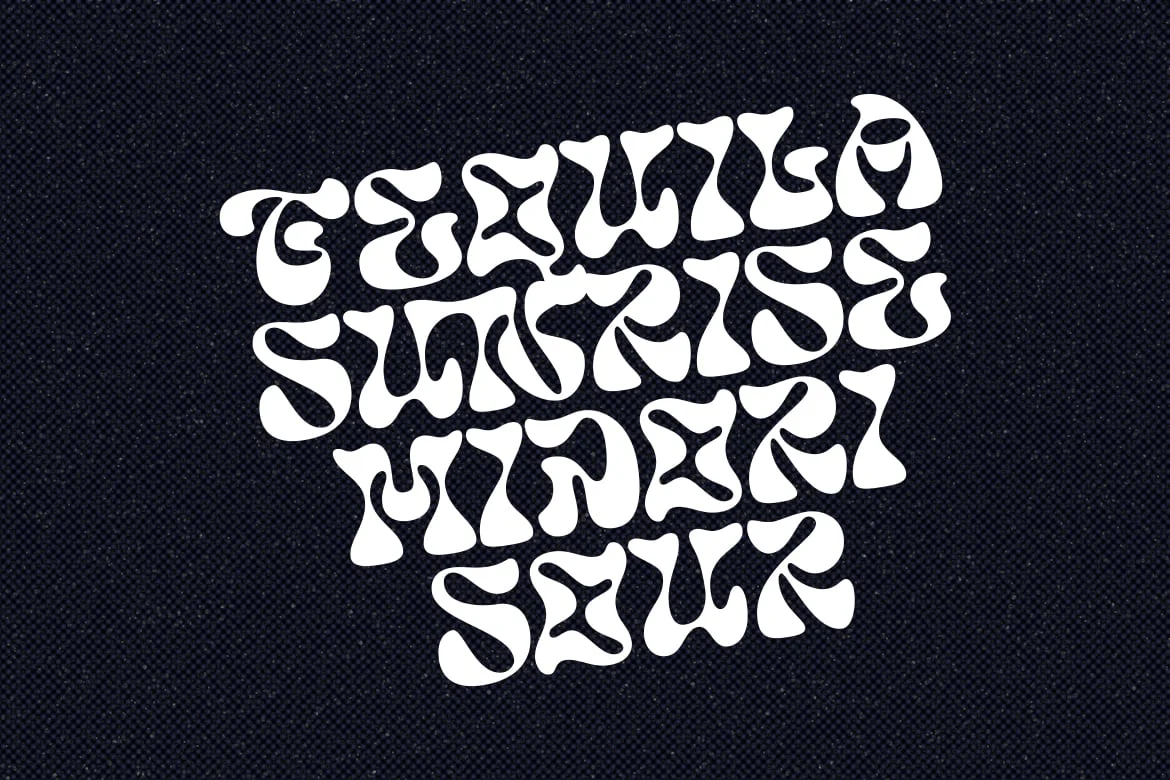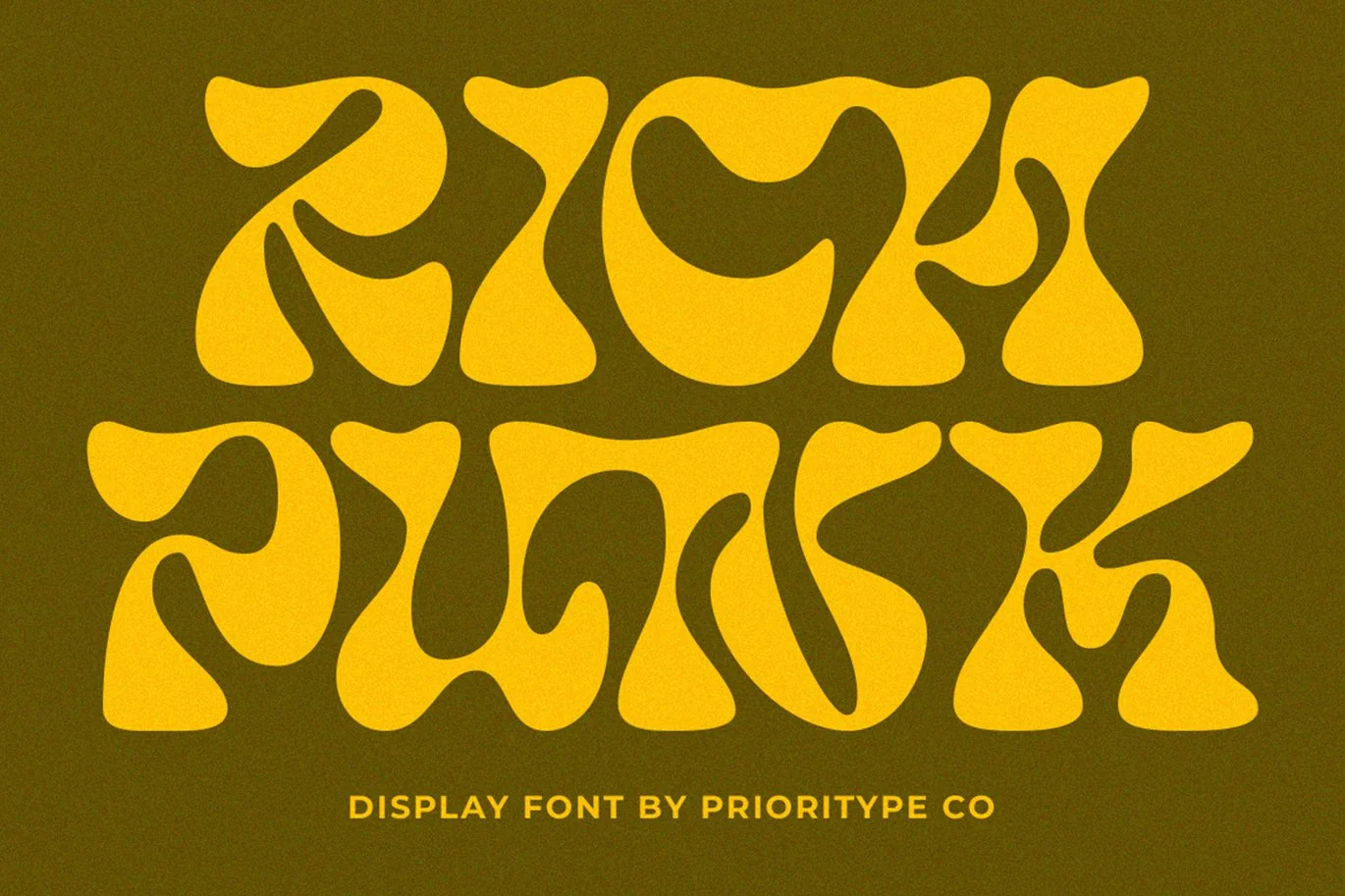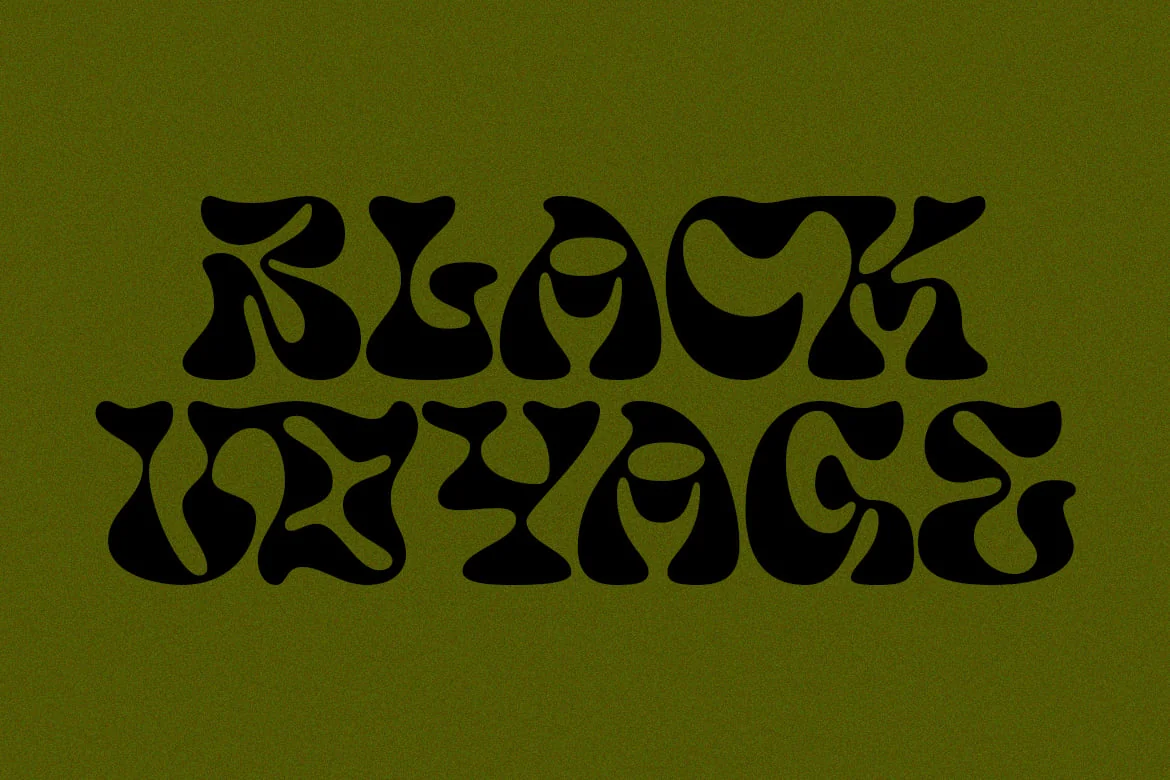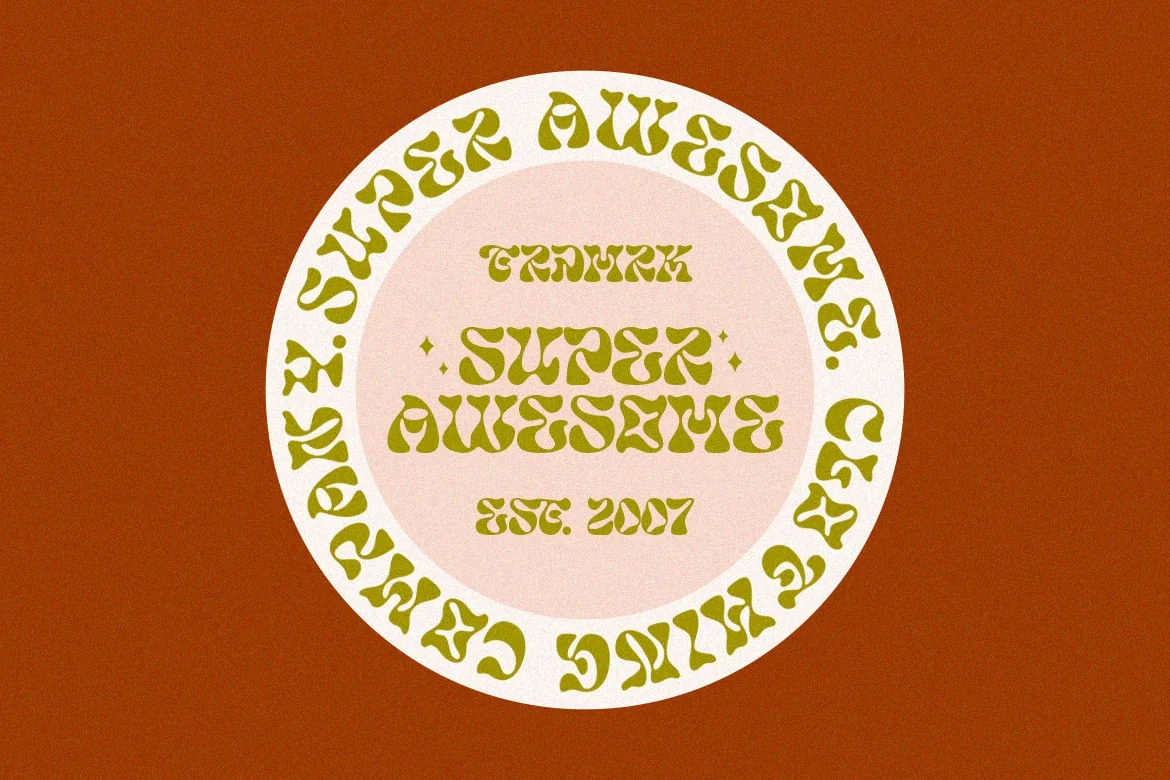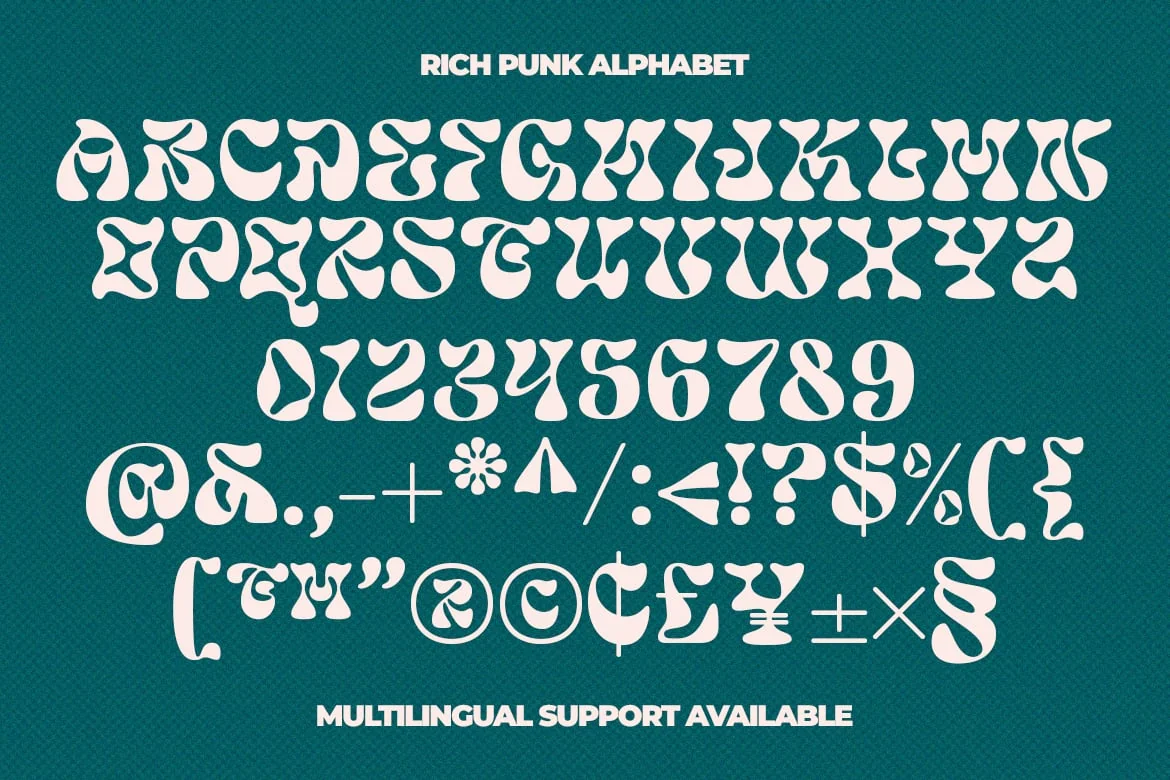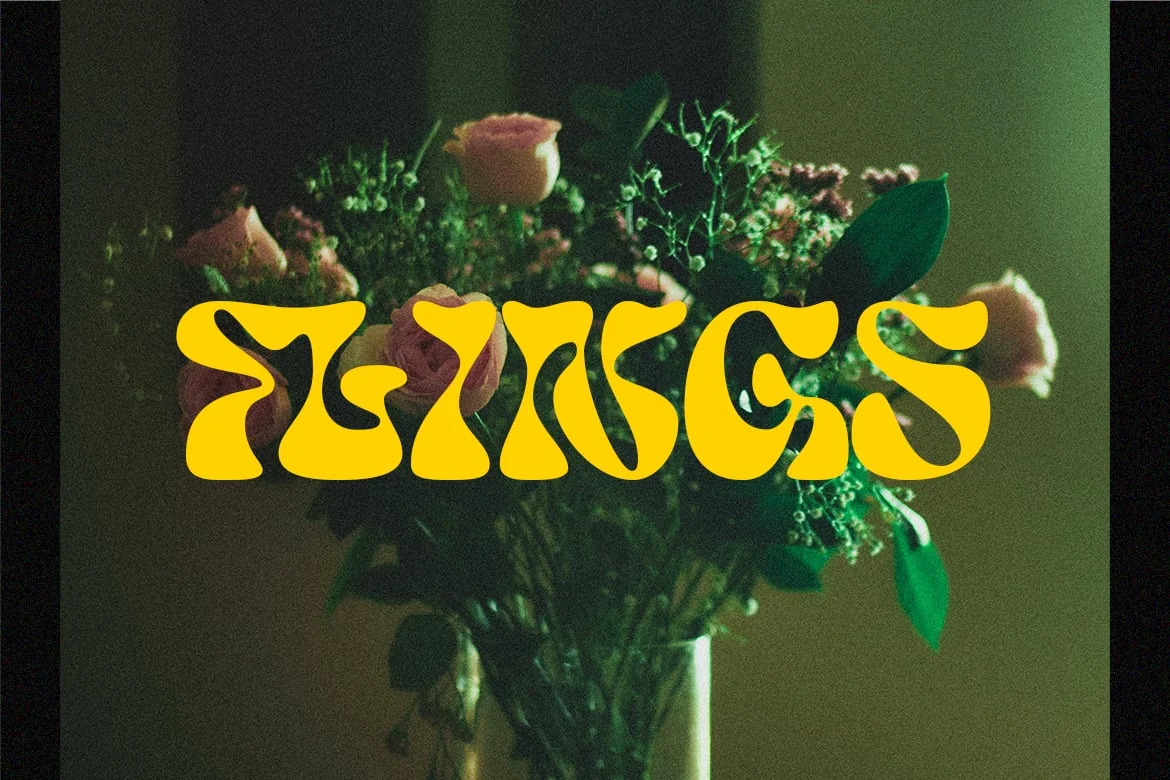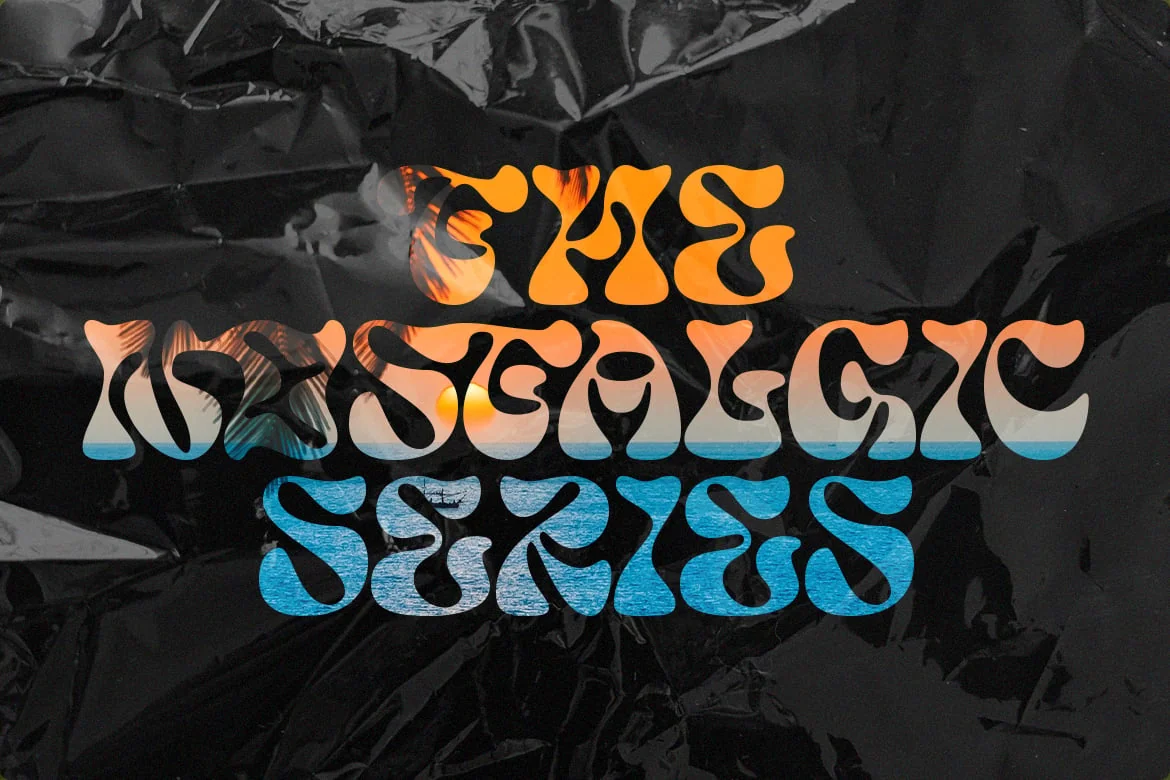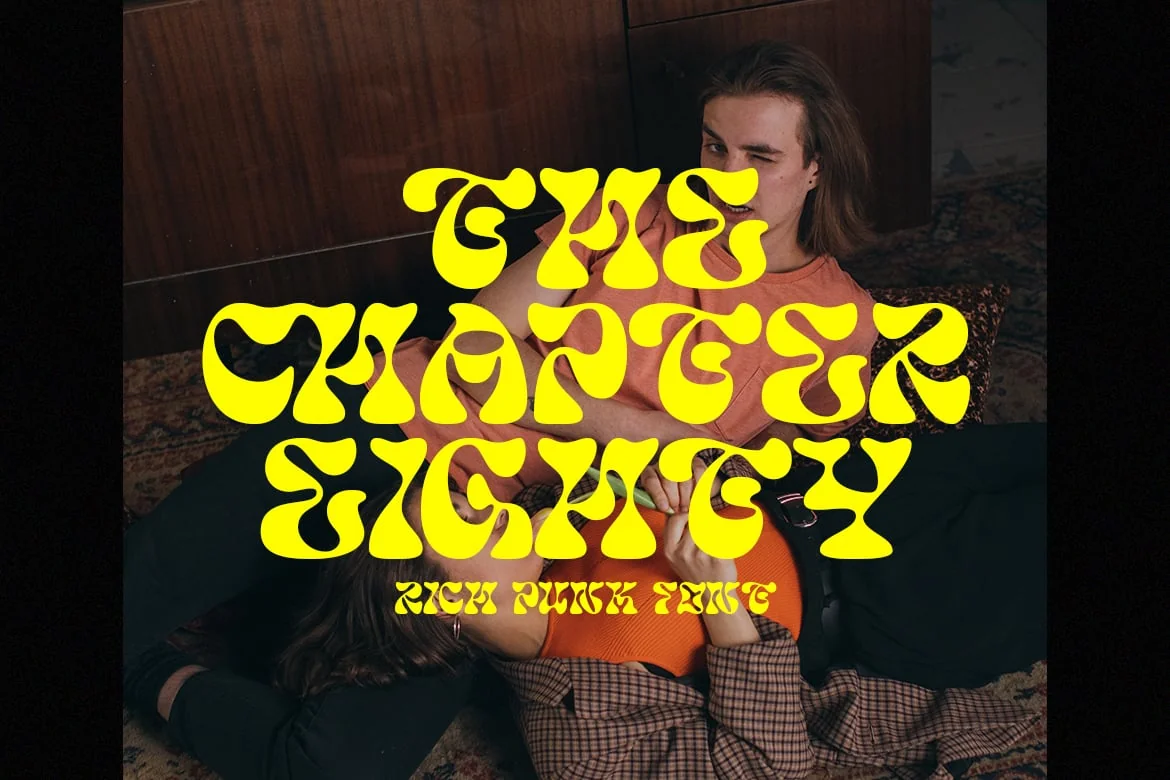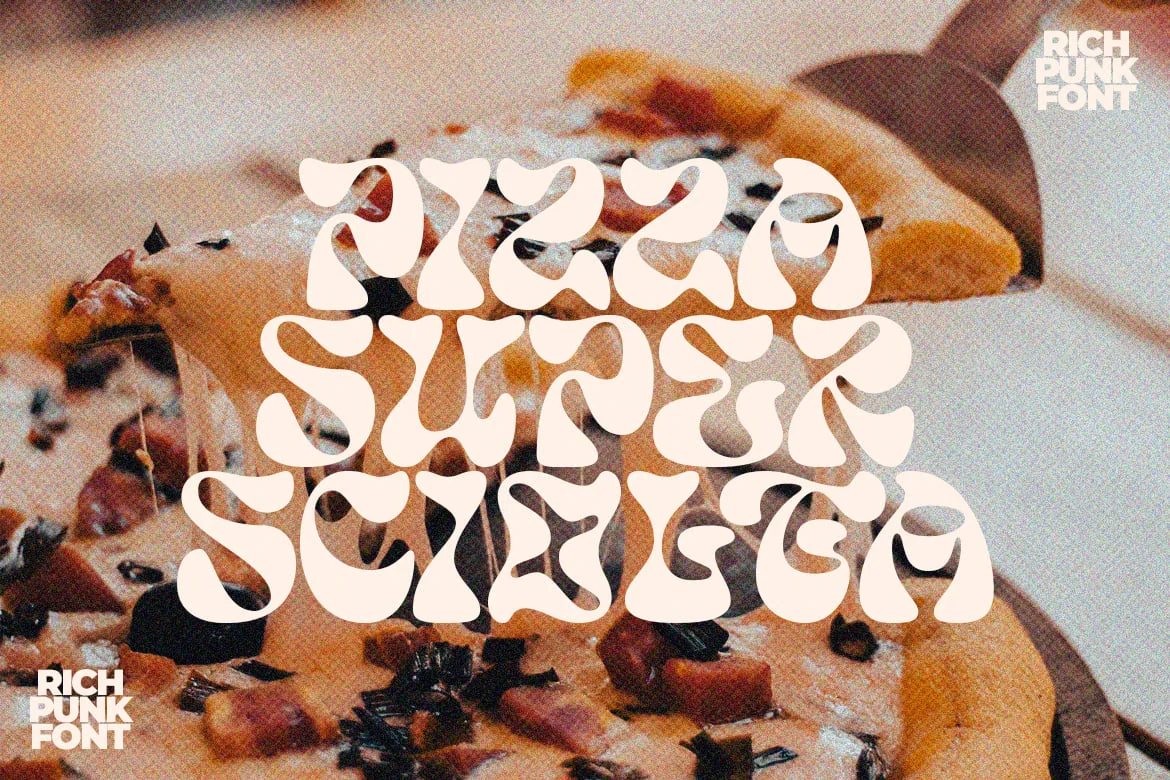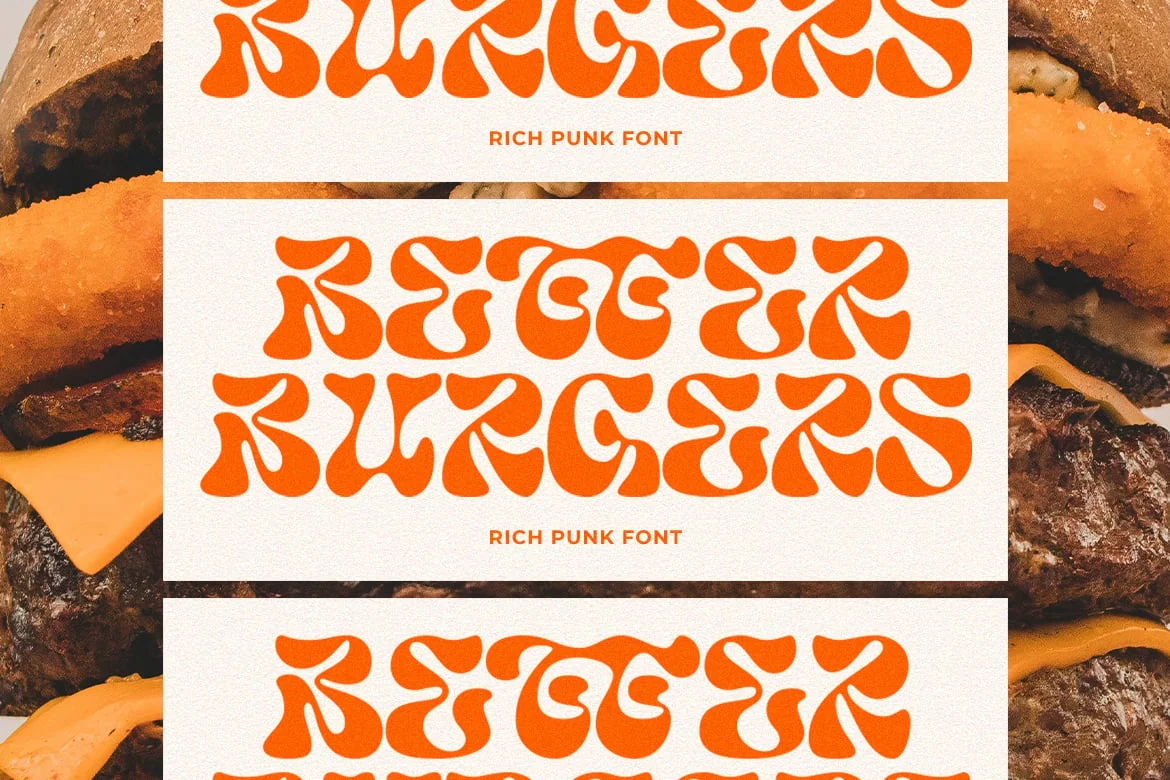
Rich Punk – Display Font
Rich Punk is a unique font. I experimented with groovy and psychedelic fonts. And this font was created. It is suitable for poster designs, merchandise, logos and many others. Cheers!
- Features: Uppercase, Lowercase, Numeral, Punctuation, Multilingual & Ligatures.